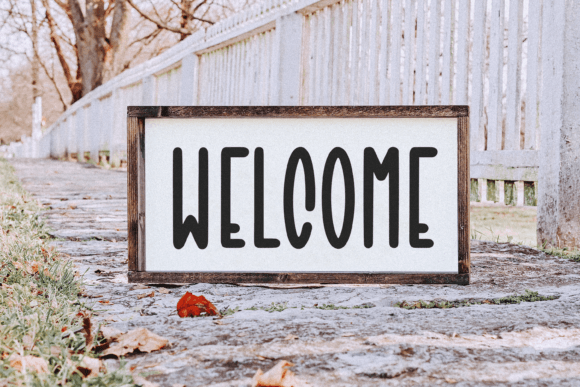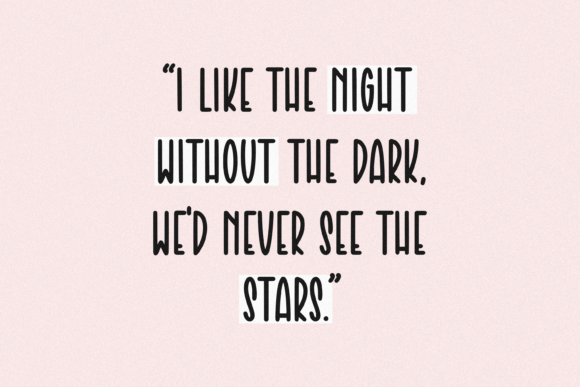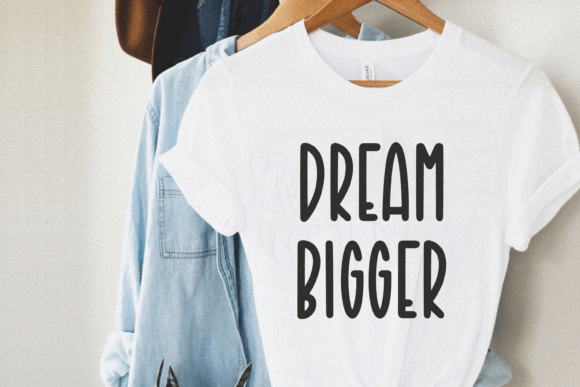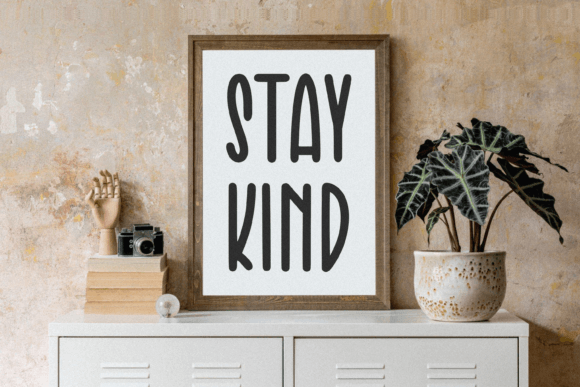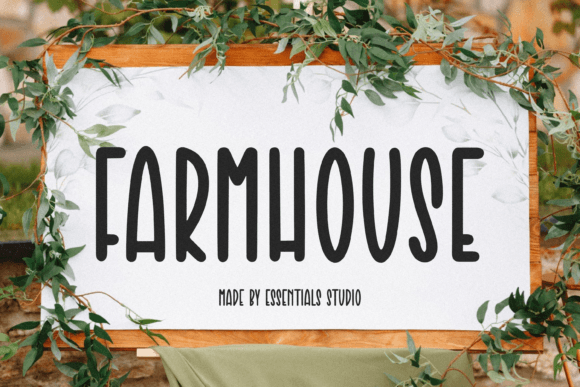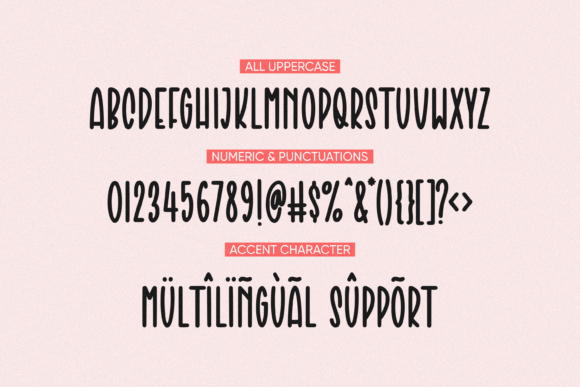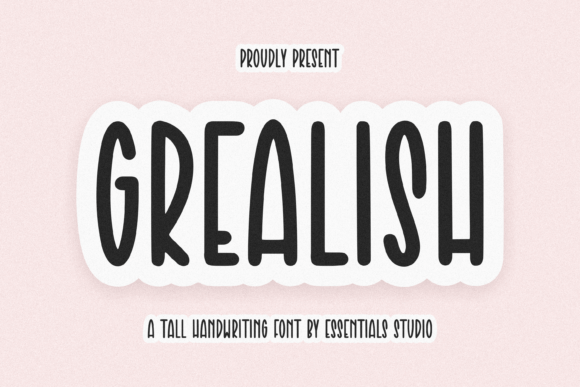
Introducing Grealish Font: The Ultimate Handwritten Font for Designers and Crafters
Are you tired of using the same old fonts for your designs and crafts? Look no further! Grealish Font is here to revolutionize your creative projects with its unique and quirky handwritten style. In this article, we’ll dive into the world of Grealish Font and explore its features, benefits, and uses.
What is Grealish Font?
Grealish Font is a tall and quirky handwritten font that is perfect for adding a personal touch to your designs. Its distinctive style is sure to make your projects stand out from the crowd. Whether you’re a designer, crafter, or DIY enthusiast, Grealish Font is an excellent addition to your font collection.
Features of Grealish Font
- Unique and Quirky Style: Grealish Font boasts a one-of-a-kind handwritten style that is both playful and elegant.
- Tall and Elegant: The font’s tall letters make it perfect for creating visually appealing designs that grab attention.
- Versatile: Grealish Font can be used for a wide range of projects, from digital designs to crafts, presentations, and greeting cards.
- Easy to Read: Despite its quirky style, Grealish Font is surprisingly easy to read, making it perfect for body text and headings.
Uses of Grealish Font
So, what can you use Grealish Font for? The possibilities are endless! Here are some ideas to get you started:
- Crafts: Add a personal touch to your scrapbooking, journaling, and other paper crafts with Grealish Font.
- Digital Design: Use Grealish Font to create stunning social media graphics, blog posts, and website headers.
- Presentations: Make your presentations more engaging and memorable with Grealish Font.
- Greeting Cards: Create beautiful and unique greeting cards for special occasions with Grealish Font.
Why You’ll Love Grealish Font
So, what makes Grealish Font special? Here are a few reasons why you’ll love this font:
- It’s Fun: Grealish Font adds a playful touch to your designs, making them more enjoyable and engaging.
- It’s Versatile: Use Grealish Font for a wide range of projects, from formal to informal.
Tips for Using Grealish Font
To get the most out of Grealish Font, here are some tips to keep in mind:
- Experiment with Sizes: Grealish Font looks great in various sizes, so don’t be afraid to experiment and find the perfect size for your project.
- Pair it with Other Fonts: Combine Grealish Font with other fonts to create stunning font combinations.
- Use it for Headings and Titles: Grealish Font is perfect for headings and titles, adding a touch of elegance and sophistication to your designs.
In conclusion, Grealish Font is an excellent addition to any designer’s or crafter’s font collection. Its unique and quirky style, versatility, and ease of use make it perfect for a wide range of projects. Whether you’re a seasoned designer or a DIY enthusiast, Grealish Font is sure to become your go-to font for all your creative needs.
Get Ready to Fall in Love with Grealish Font!